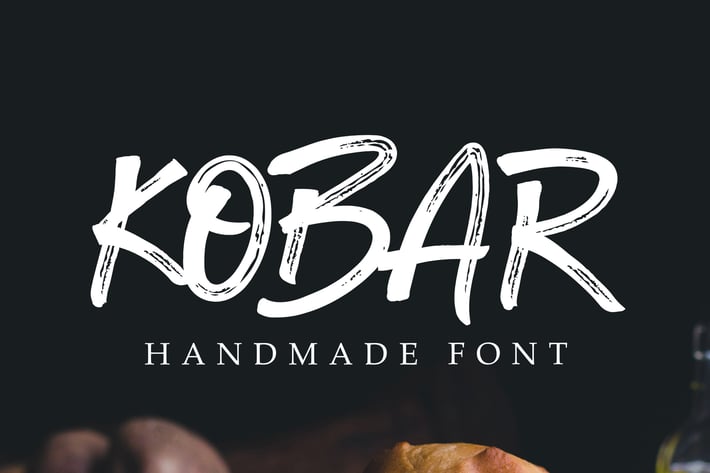
Kobar Rusty Font
Kobar font is a modern textured font. Very suitable for food poster, for logo, music cover, clothing, and many many cool design projects. Kobar is uppercase only, bold and strong.